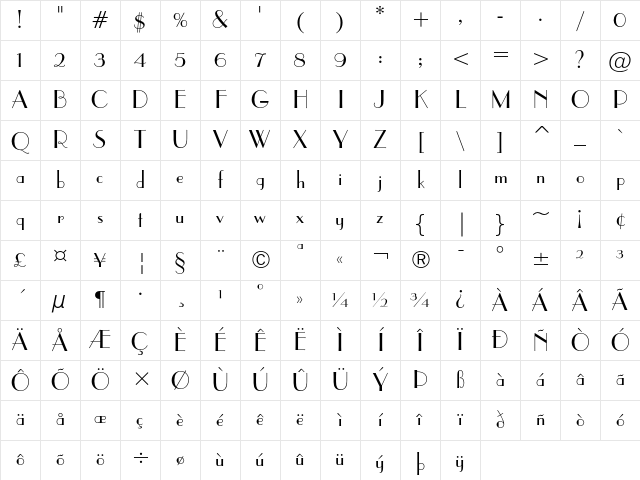
Parisian Regular
Parisian Family
Complete Parisian Regular glyph index. Displaying only characters natively supported by Parisian Regular font.
Design Context for Parisian
Parisian is a composed and adaptable typeface that performs quietly and consistently across a wide range of design contexts.